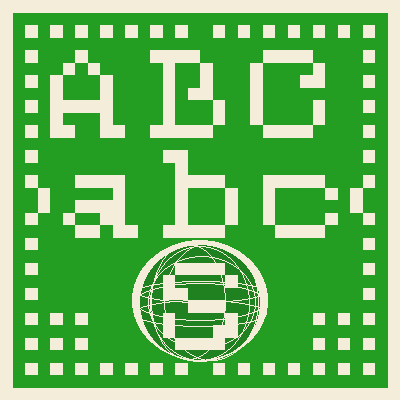
This fontpack adds wide (7x6p) font with serif.
Samsara> wandering, world, cycle.
Anicca is a font with both round a jagged edged, which give it a spicy contrast.